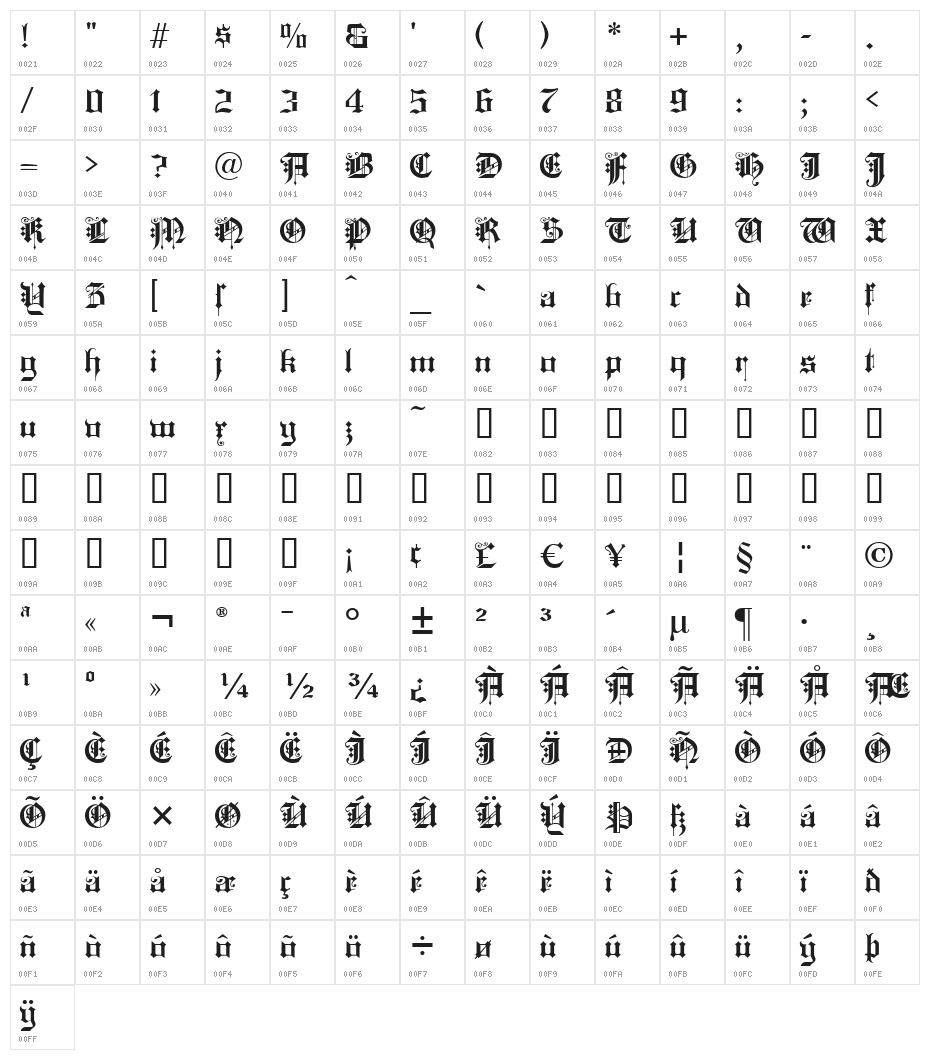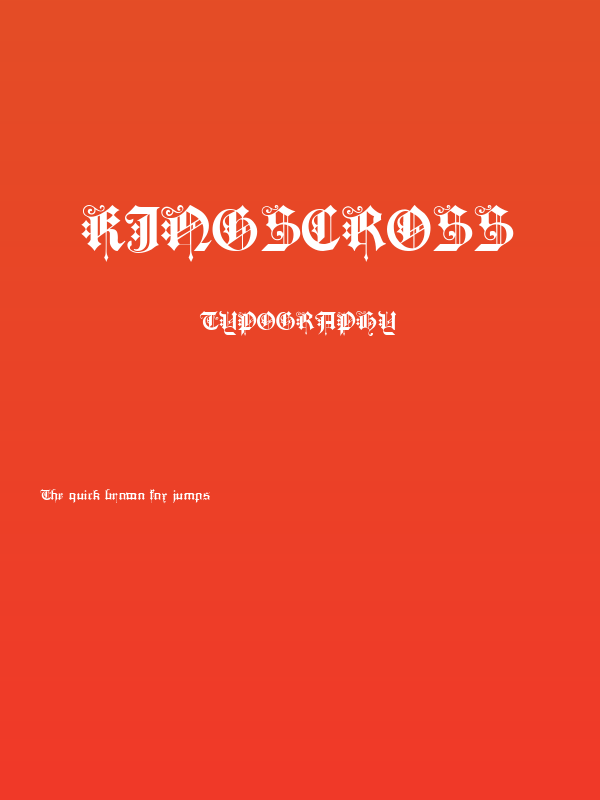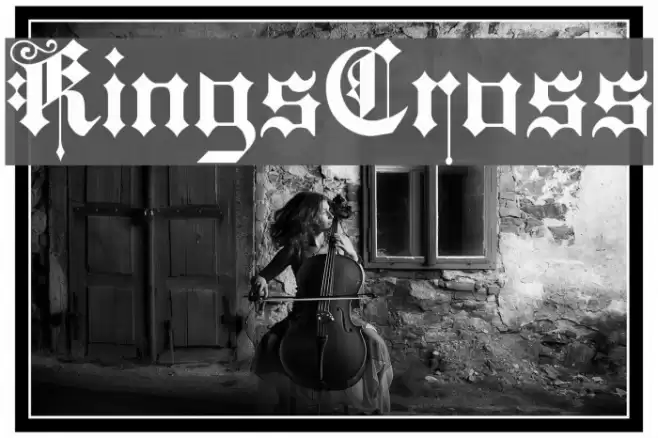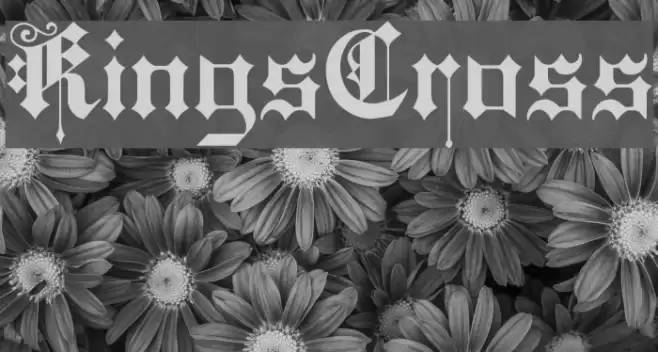
KingsCross Font
KingsCross Description
This font exhibits a classic Blackletter style, characterized by its ornate and intricate design. The uppercase letters are adorned with elaborate flourishes and sharp angles, giving them a dramatic and historical appearance. The lowercase letters maintain a consistent style with pointed edges and decorative elements, enhancing the medieval aesthetic. The numerals and special characters are equally stylized, ensuring a cohesive look across all glyphs. This font is perfect for projects that require a touch of elegance and tradition, such as invitations, certificates, or branding that seeks to evoke a sense of history.
| Overall Style | Vintage |
| Proposed Projects | Ideal for historical-themed designs, wedding invitations, certificates, and branding. |